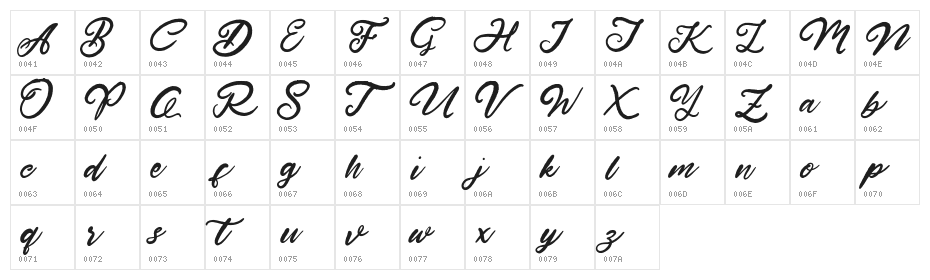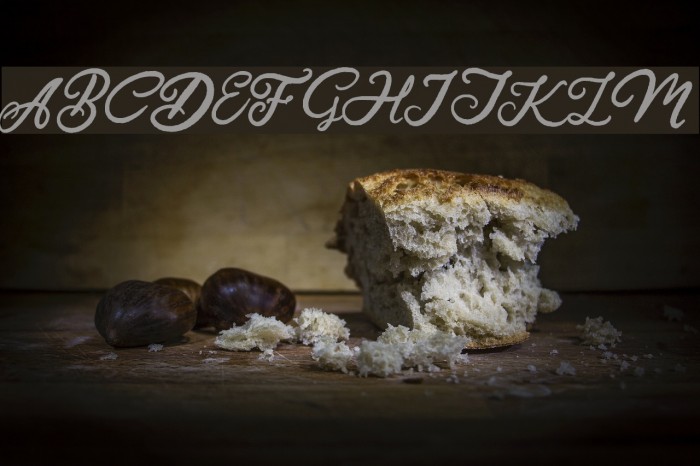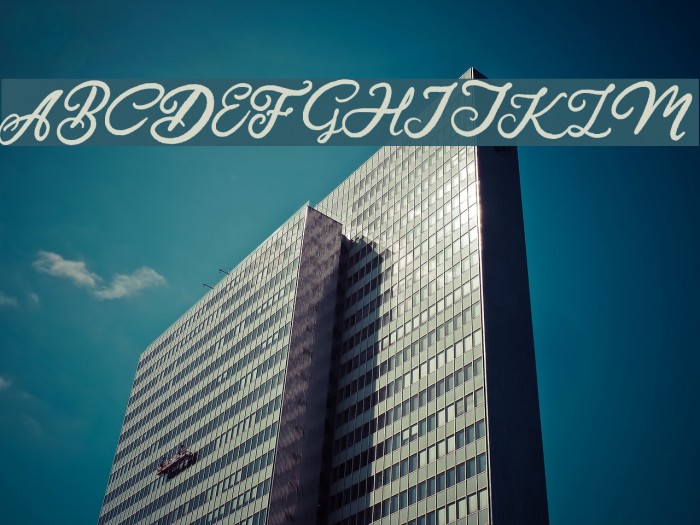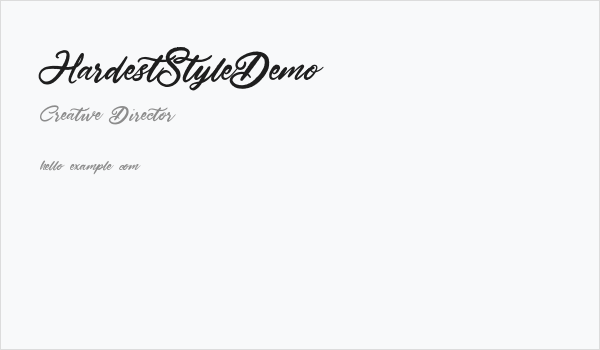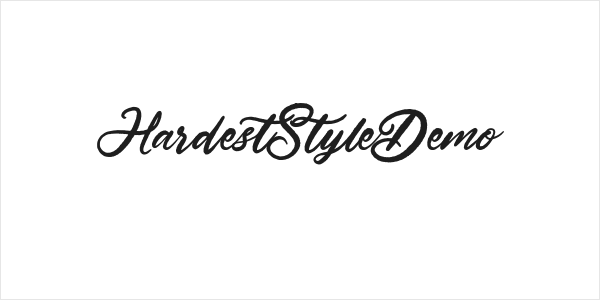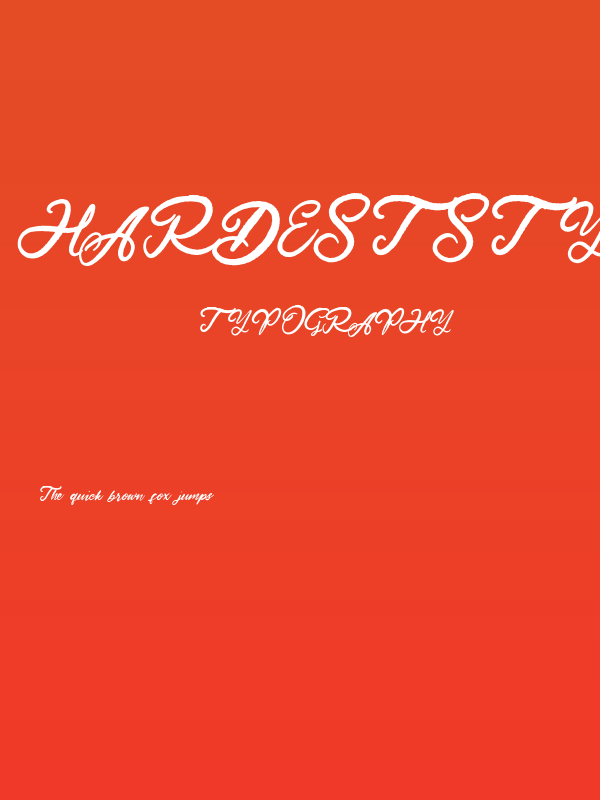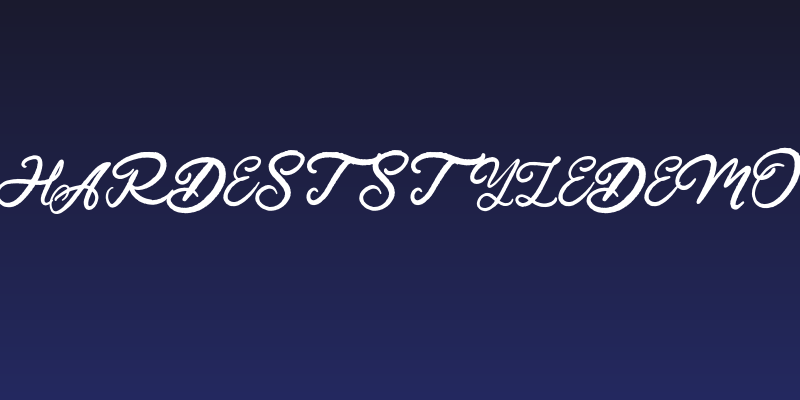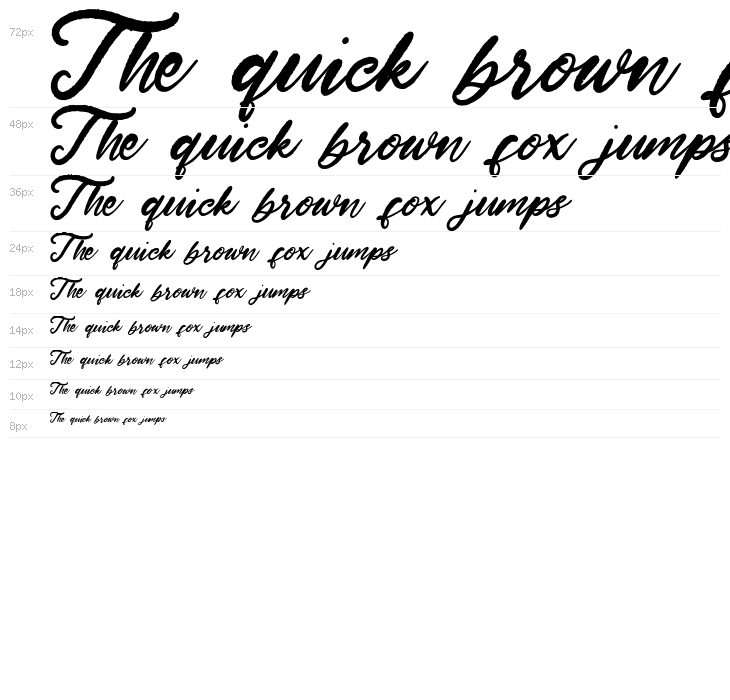
HardestStyleDemo Font
HardestStyleDemo Description
This font features a dynamic and flowing script style, characterized by its elegant and cursive letterforms. The uppercase letters are slightly more ornate, with intricate loops and swashes that add a touch of sophistication. The lowercase letters maintain a consistent flow, with smooth connections between characters, enhancing readability while retaining a stylish flair. The font exhibits a medium contrast in stroke thickness, providing a balanced appearance that is neither too bold nor too light. Its overall design exudes a sense of modern elegance, making it suitable for a variety of creative applications.
Fonts by Putra Khan
| Proposed Projects | Ideal for wedding invitations, branding, greeting cards, and elegant logo designs. |